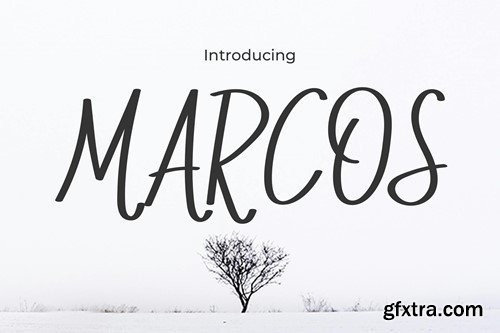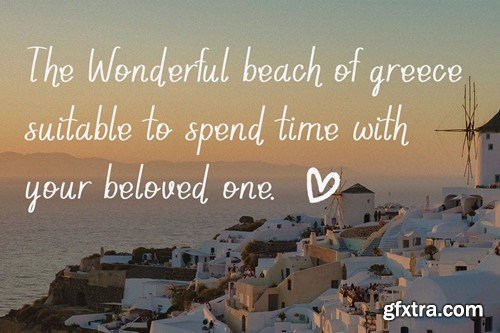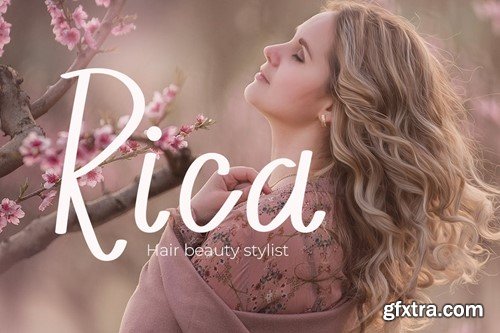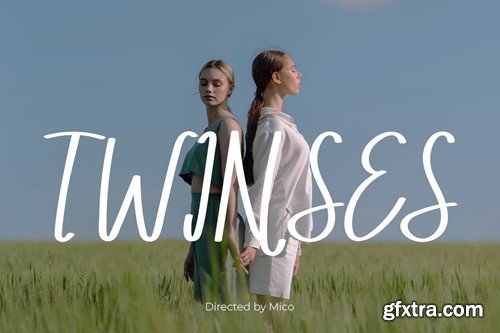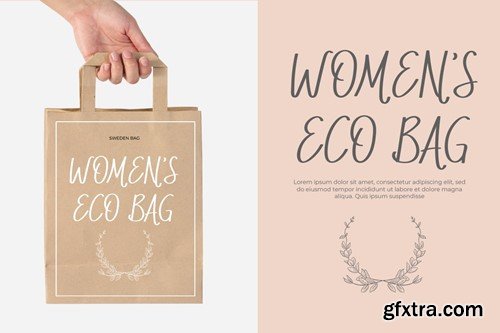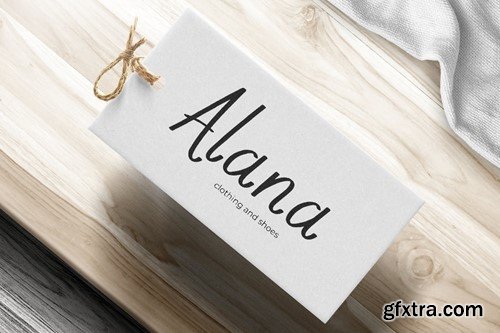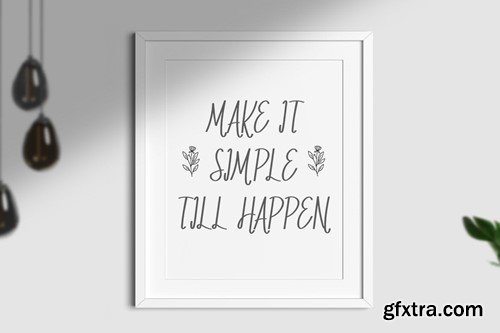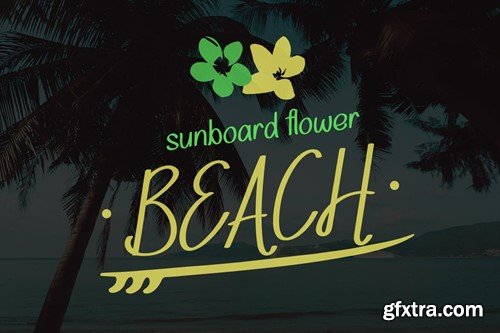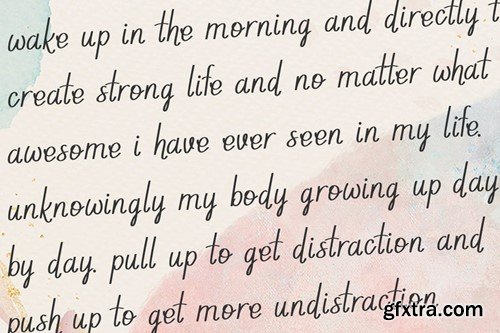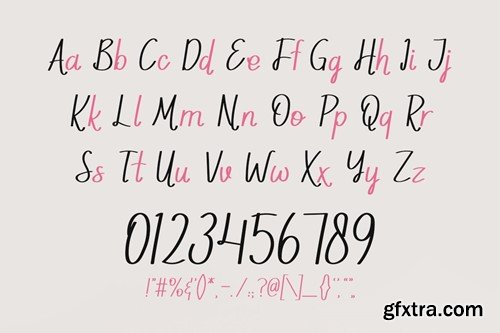
马可斯 - 无与伦比的手写字体 CXPUE7S
Marcos is a font that embodies the warmth and personal touch of handwritten script, making it a perfect choice for designs that require a hint of personal flair and approachability. Its school and note style brings an authentic, relatable feel to any project, ideal for creating an atmosphere of familiarity and comfort. For logos, Marcos offers a unique identity that is both friendly and memorable, making brands feel more accessible to their audience. Its casual elegance enhances quotes, providing a personal touch that resonates deeply with readers. Invitations crafted with Marcos invite guests with warmth and sincerity, setting the stage for both inviting and intimate events. In posters and greetings, the Marcos font communicates messages in a way that feels personalized and engaging, capturing the essence of the message in every stroke. Its application in packaging and branding gives products a handmade appeal, appealing to consumers looking for authenticity and craftsmanship. For book covers, event promotions, headlines, and advertising, Marcos ensures your message stands out with its natural charm and handwritten warmth, creating a genuine and inviting connection.